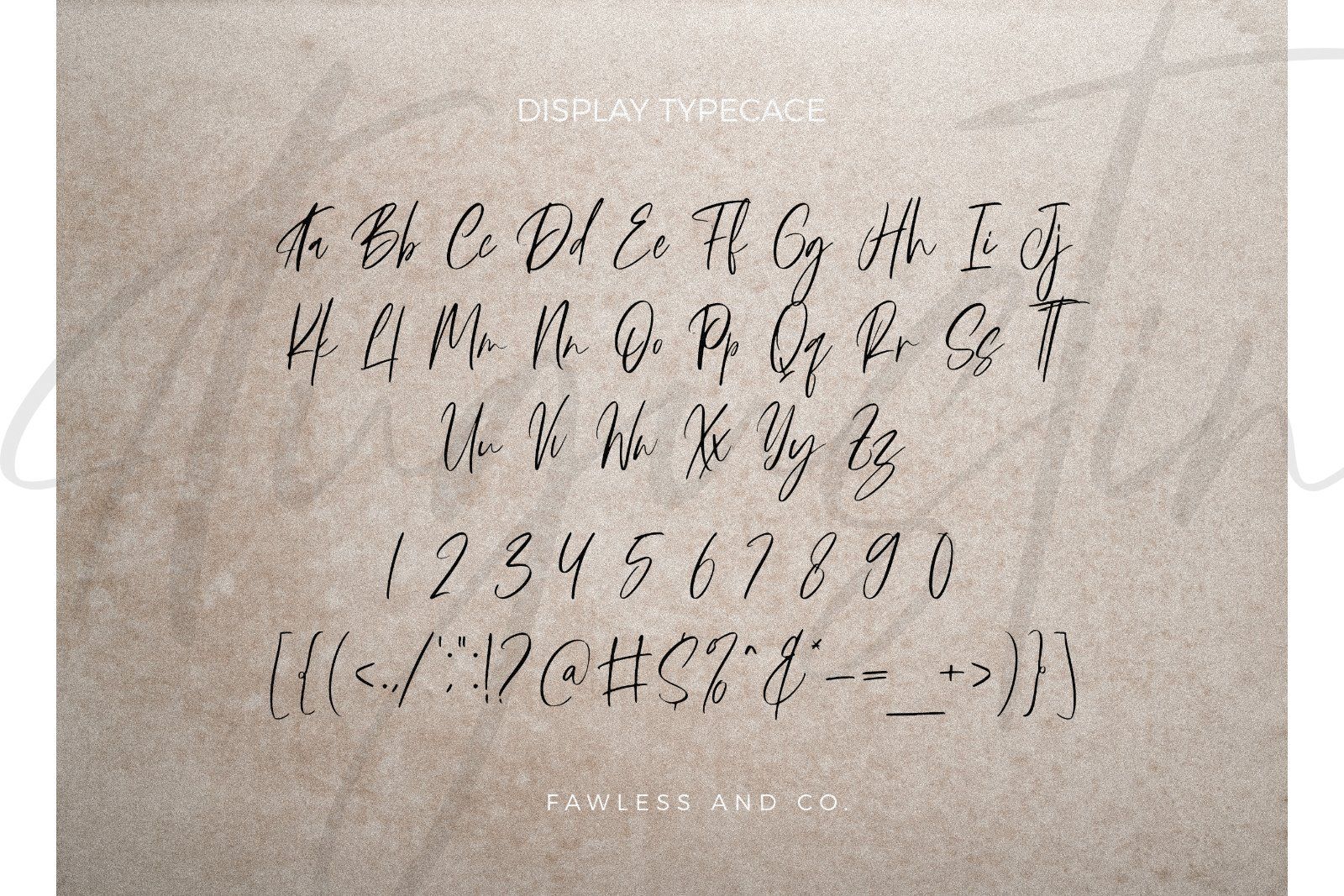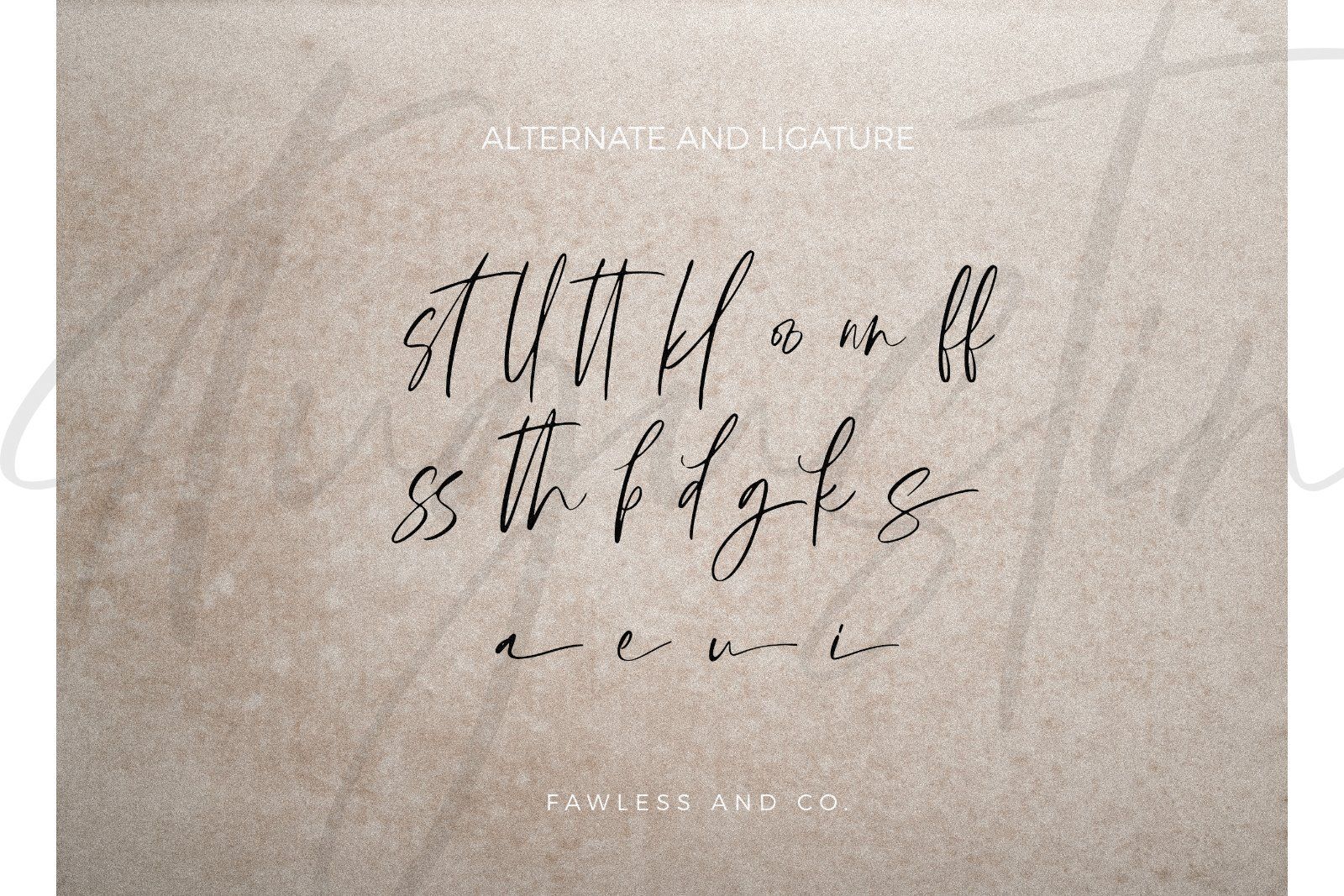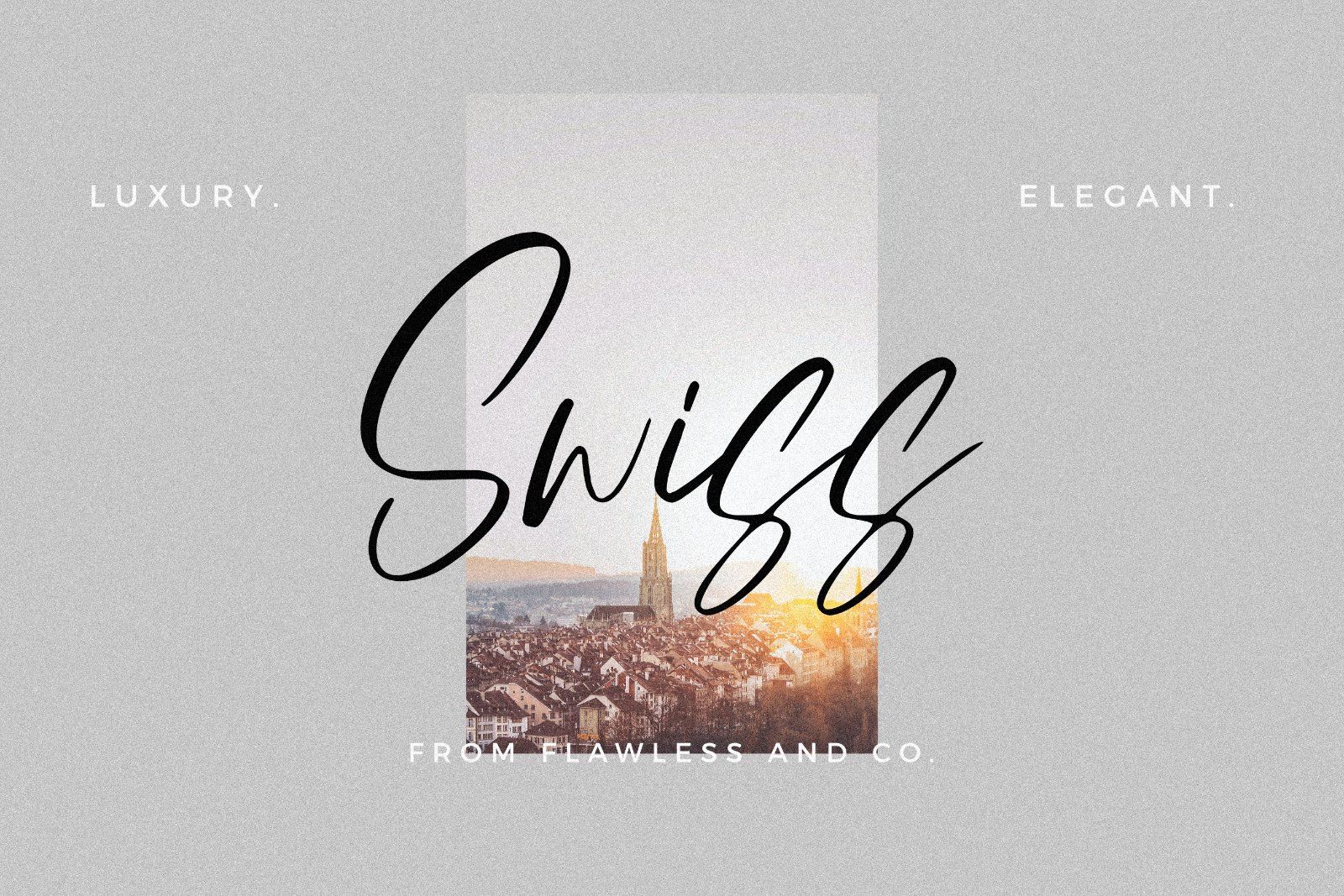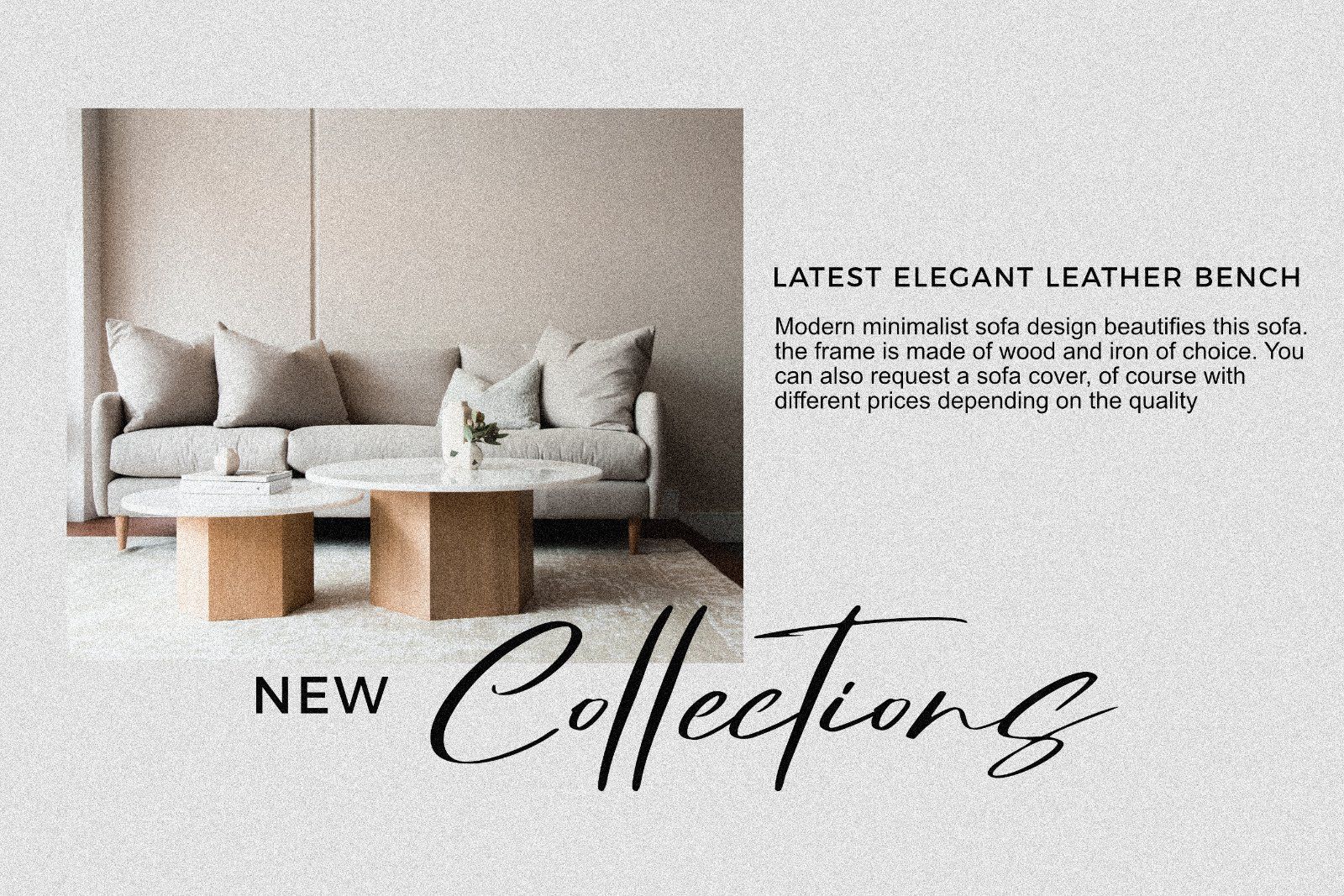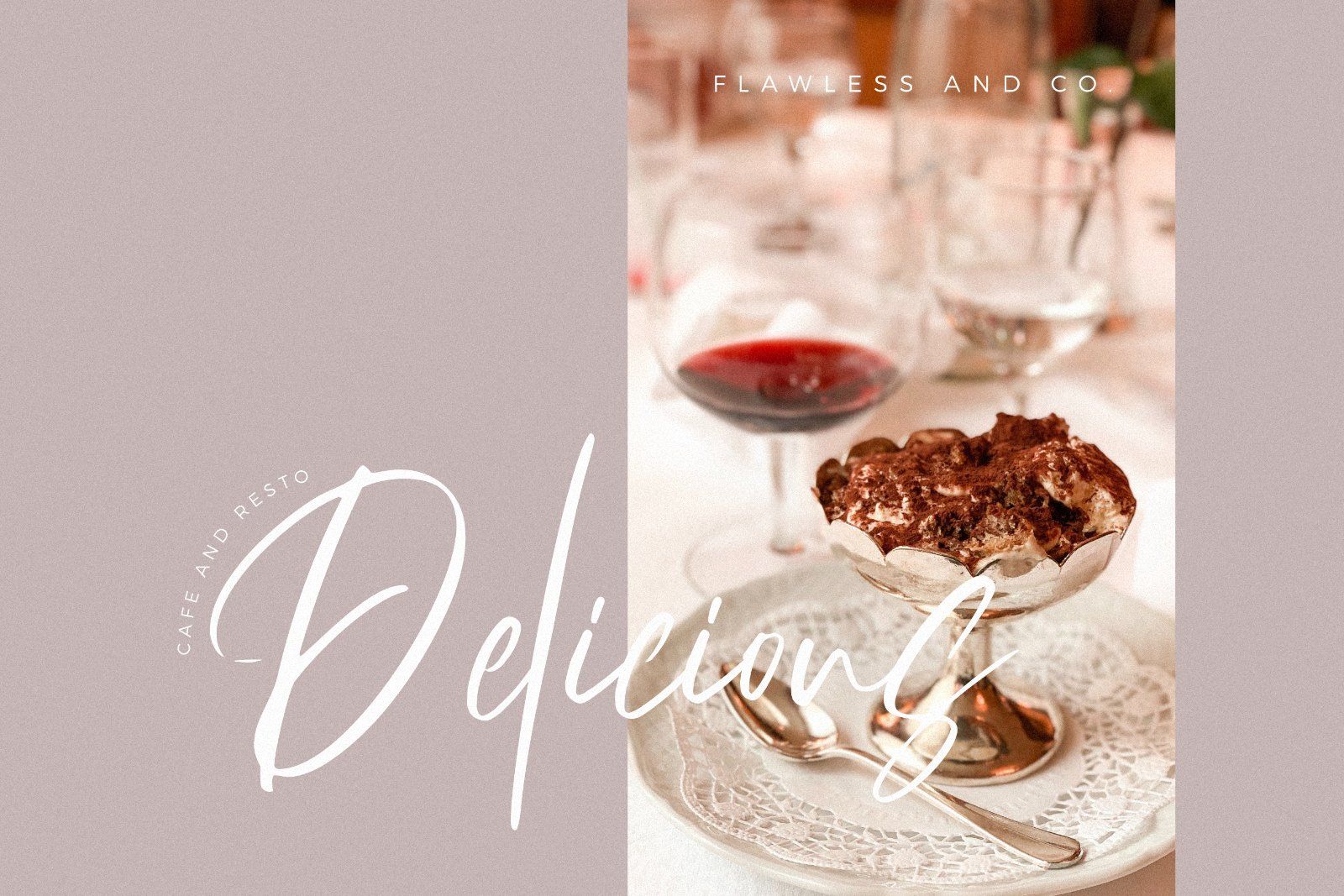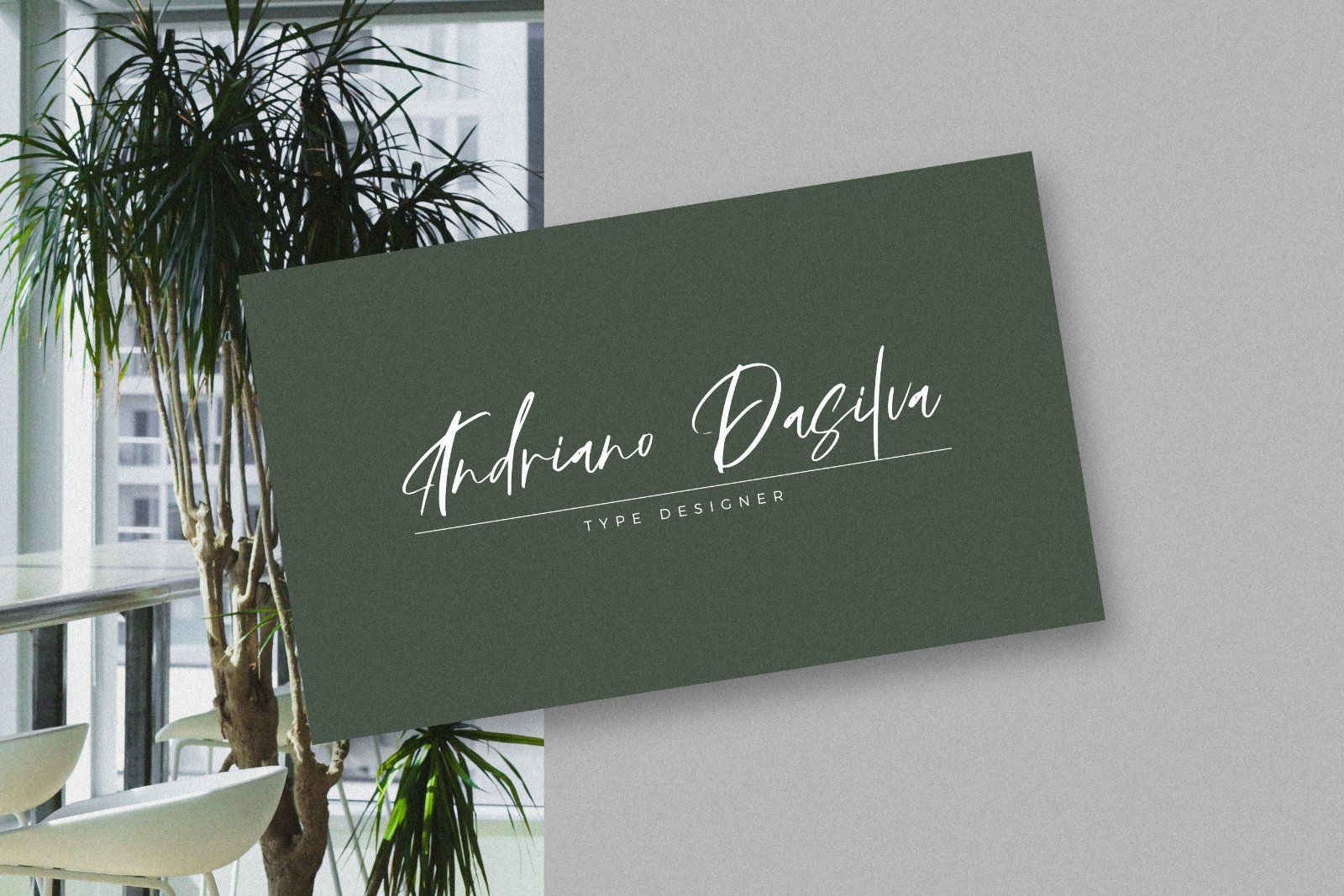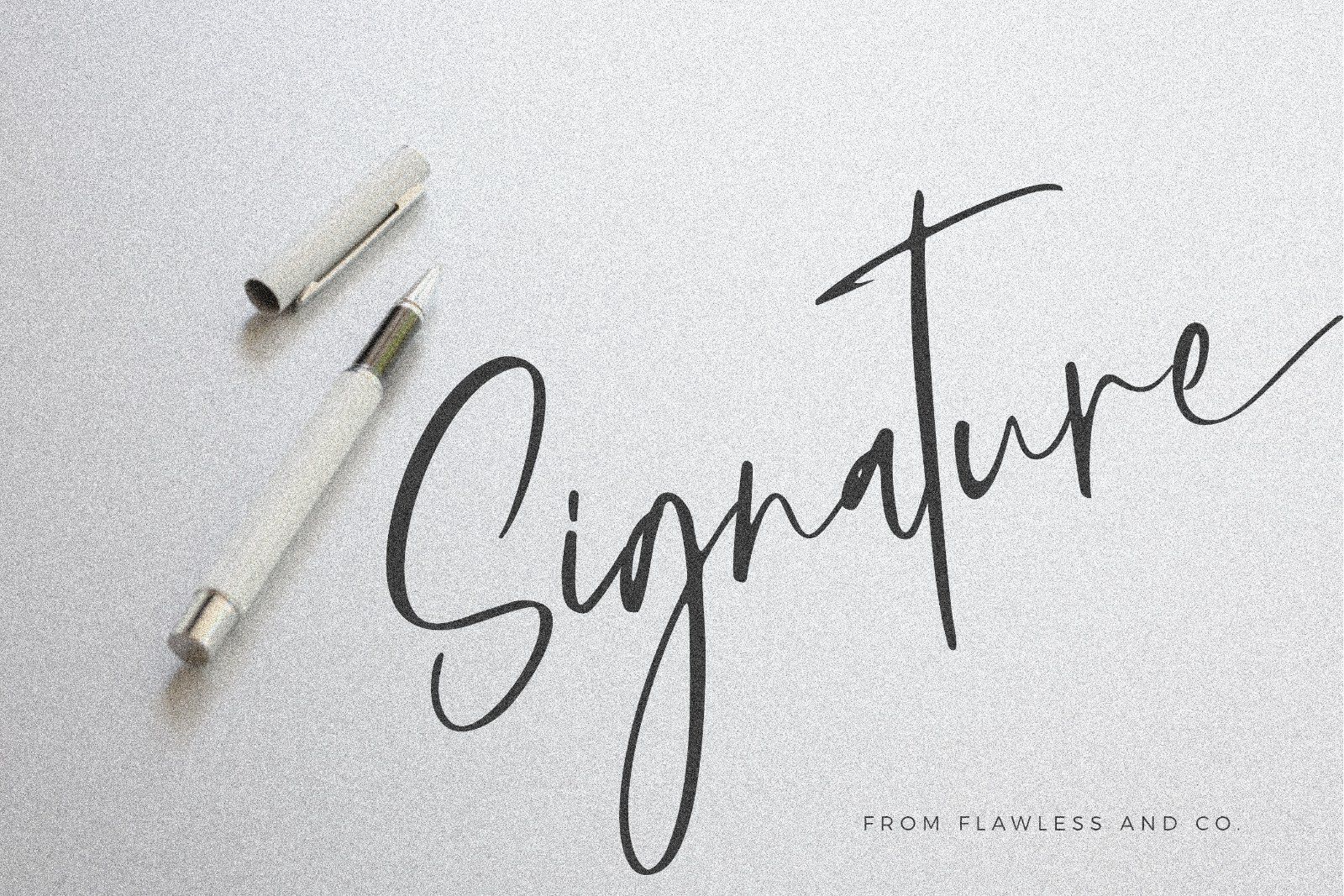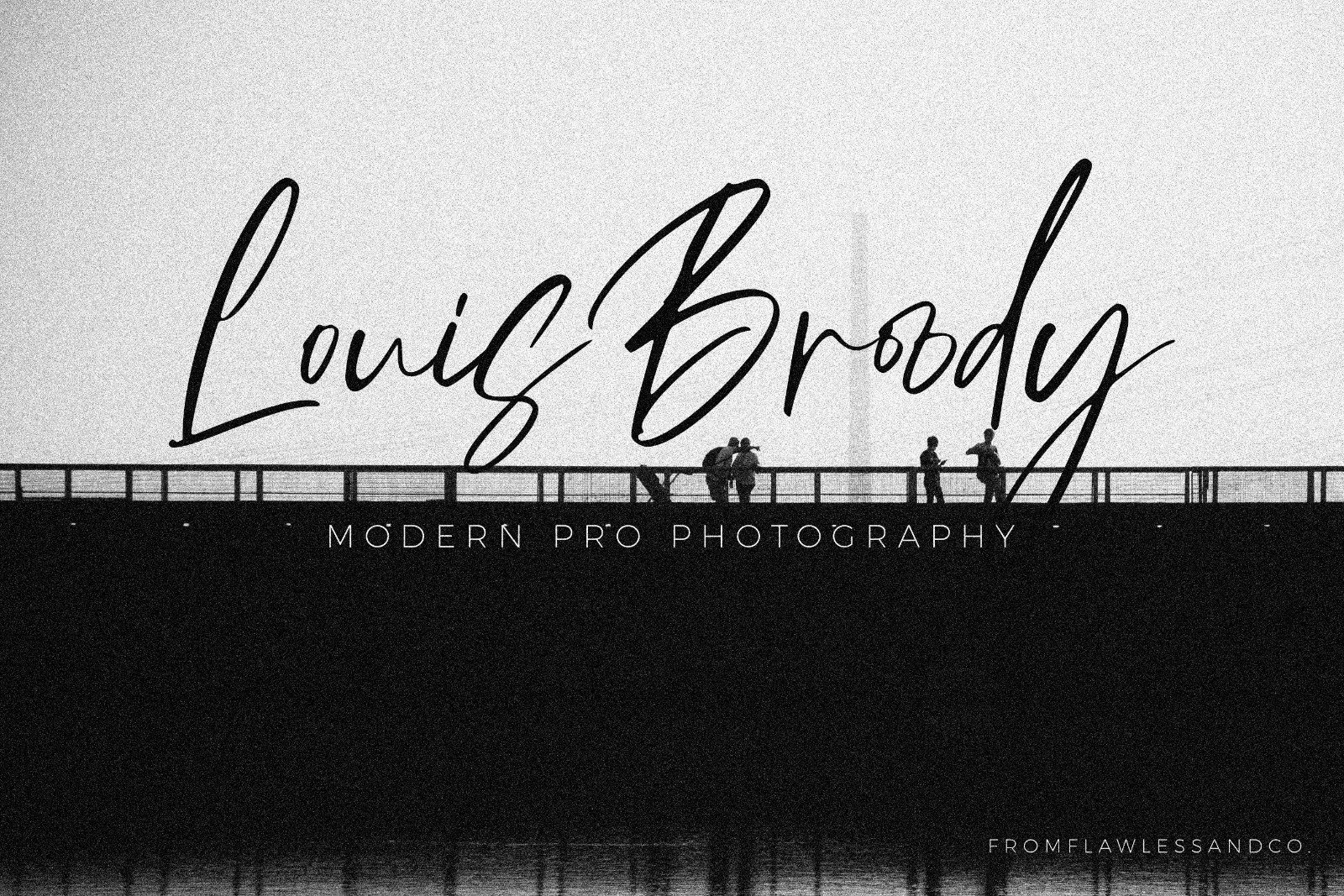
Augustin is a modern signature font that combines natural handwritten strokes with an elegant and expressive personality. Its fluid letterforms, delicate curves, and extended signature-style strokes create a sophisticated yet effortless look. Designed to capture the authentic feel of a personal handwritten signature, Augustin adds a stylish and artistic touch to any project while maintaining a clean and contemporary appearance. Whether you’re creating a personal brand, logo, photography watermark, or fashion identity, Augustin brings a refined and memorable handwritten character to your designs.
• Uppercase alphabet A-Z
• Lowercase alphabet a-z
• Alternate Character
• Numbers 0-9
• Some punctuation